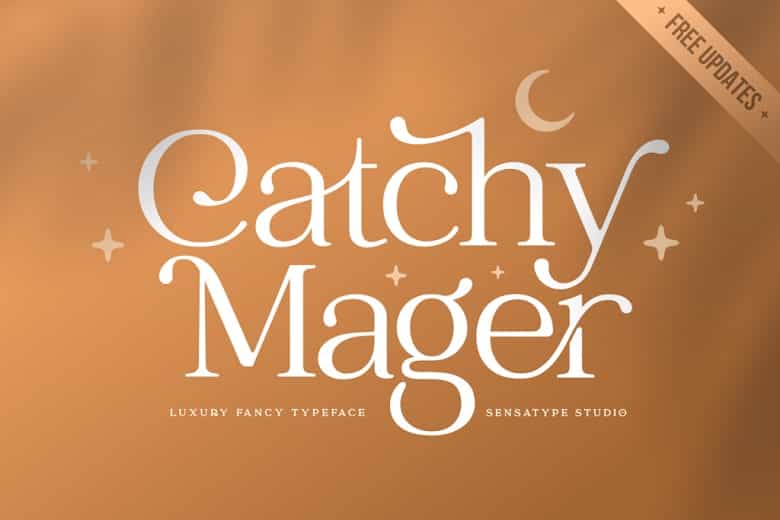
Catchy Mager is a luxury serif font that features soft flowing shapes of the letters with delicate curves. As a graphic designer who works for numerous companies, we are usually asked to come up with a classy design. So, here we attempt to brainstorm and design this font combination to make the idea go out.